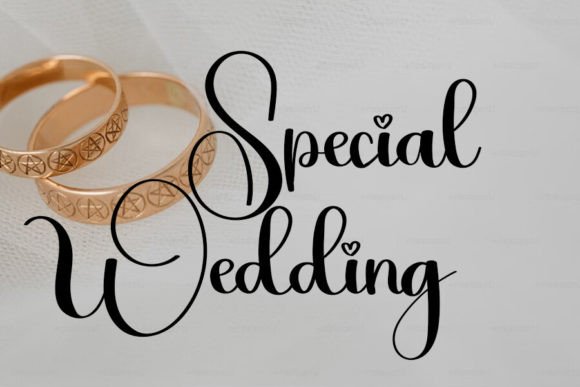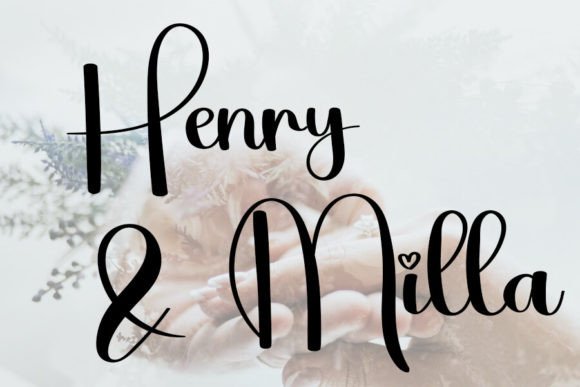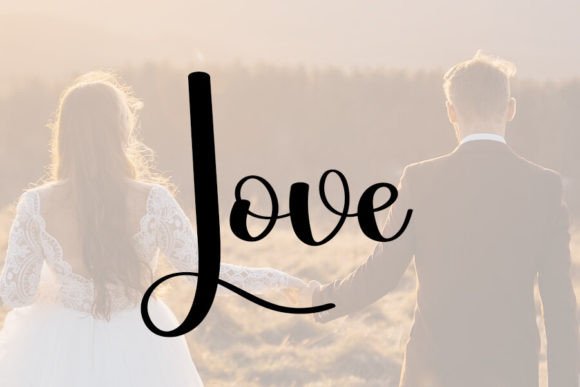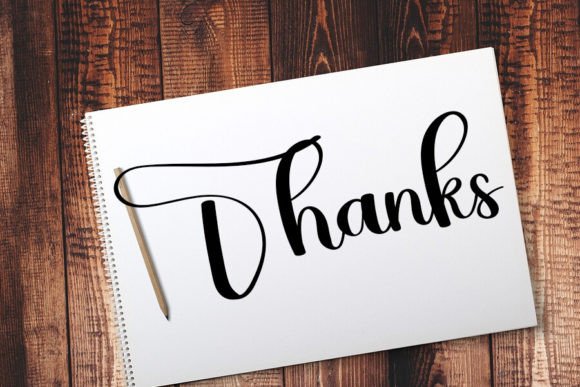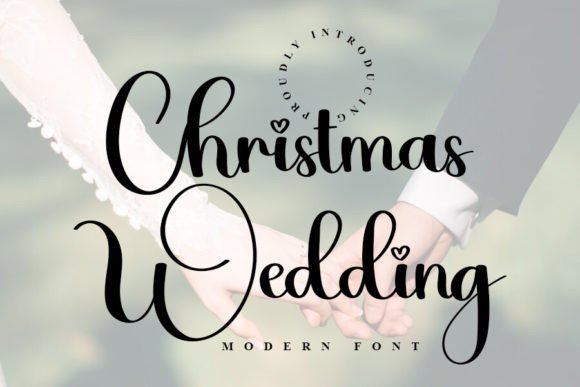
Introducing the Magical Christmas Wedding Font: Elevate Your Designs This Holiday Season
Are you searching for a font that captures the essence of the holiday season and adds a touch of elegance to your designs? Look no further than the Christmas Wedding Font. This beautiful and fresh font is perfect for designers and crafters looking to create stunning visual content for their clients or personal projects. In this article, we’ll dive into the features and benefits of the Christmas Wedding Font and explore how it can elevate your designs this holiday season.
A Fresh and Beautiful Font for Your Design Purposes
The Christmas Wedding Font is a unique and simple font that is specifically designed to meet the needs of modern designers. Its clean lines, elegant curves, and festive feel make it an ideal choice for a wide range of design projects, from YouTube banners and cover logo mockups to wedding invitations, ID cards, flyers, and crafts.
One of the standout features of this font is its versatility. Whether you’re creating a holiday-themed wedding invitation or a festive YouTube banner, the Christmas Wedding Font is sure to impress. Its fresh and beautiful design ensures that your content stands out from the crowd and leaves a lasting impression on your audience.
Perfect for Wedding Invitations and Holiday Crafts
The Christmas Wedding Font is particularly well-suited for wedding invitations and holiday crafts. Its elegant and sophisticated design makes it perfect for creating beautiful and memorable wedding stationery, while its festive feel ensures that it’s also ideal for holiday-themed crafts and decorations.
Whether you’re a professional designer or a crafty DIY enthusiast, this font is sure to become a staple in your design toolkit. With the Christmas Wedding Font, you can create stunning wedding invitations, holiday cards, and decorations that are sure to delight your clients or loved ones.
Benefits of Using the Christmas Wedding Font
So why choose the Christmas Wedding Font for your design projects? Here are just a few benefits of using this amazing font:
- Unique and eye-catching design: The Christmas Wedding Font features a fresh and beautiful design that’s sure to grab attention and leave a lasting impression.
- Versatile and flexible: This font is perfect for a wide range of design projects, from wedding invitations and holiday crafts to YouTube banners and ID cards.
- High-quality design: This font is designed to the highest standards, ensuring that your designs look professional and polished.
Here are a few tips for getting the most out of the Christmas Wedding Font:
- Experiment with different sizes and colors: Try out different font sizes and colors to see what works best for your design.
- Pair with complementary fonts: Combine the Christmas Wedding Font with complementary fonts to create a unique and visually appealing design.
- Use in combination with images and graphics: Add an extra layer of depth and interest to your design by combining the font with images and graphics.